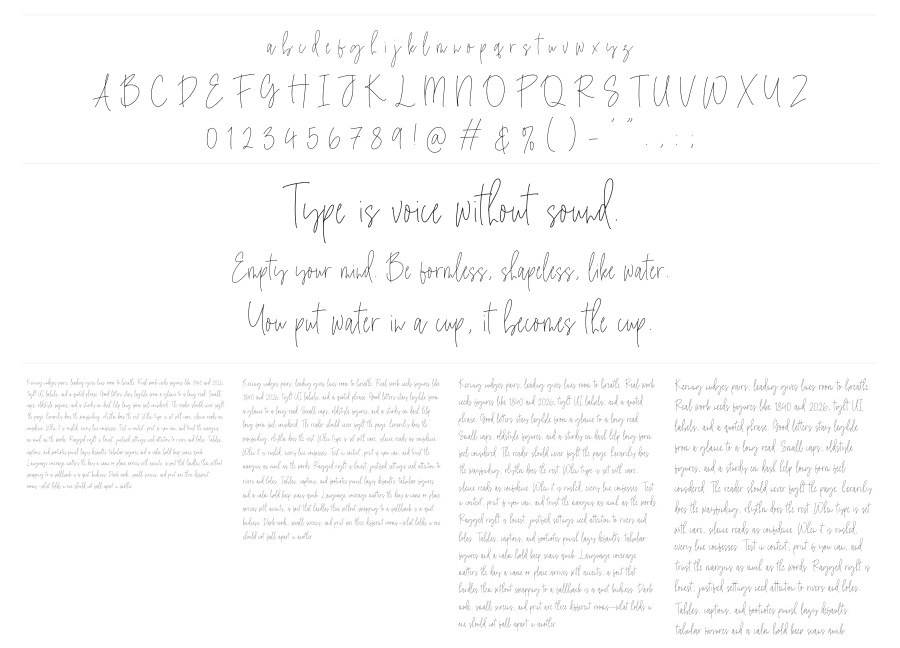
Avocado Candy
Avocado Candy is a thin, flowing handwritten script that moves like ink from a fine-tipped pen across the page. Long looping ascenders and descenders give it an effortless, organic quality without feeling sloppy. It suits logos, packaging, and any context where casual elegance is the goal.